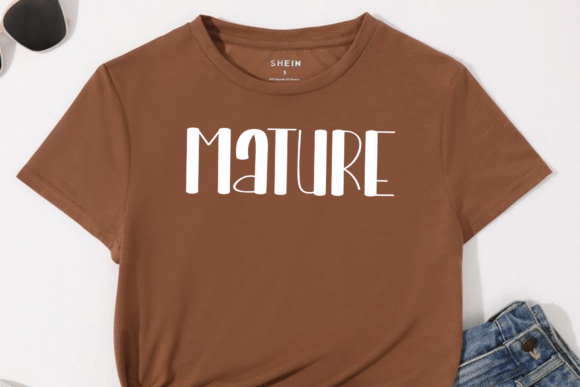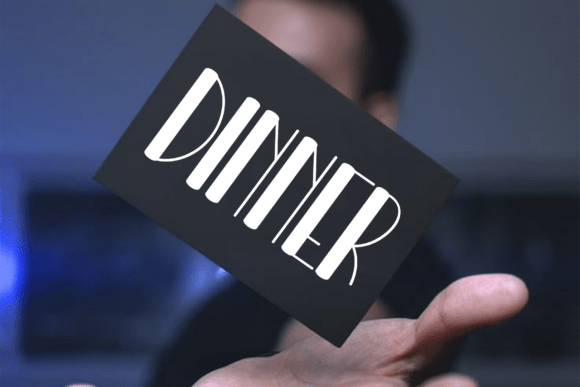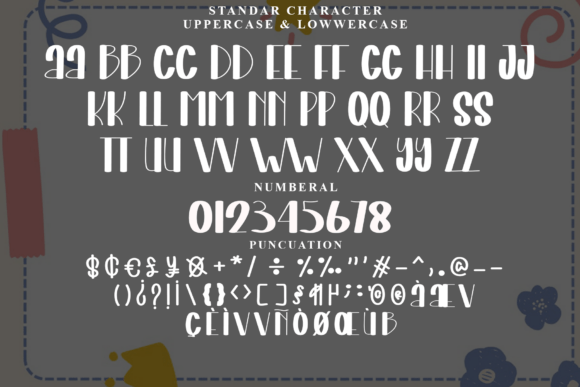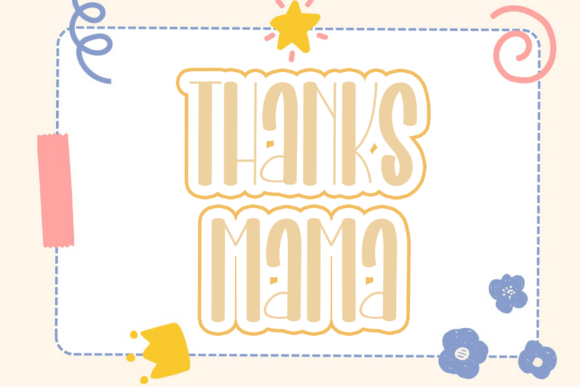
Introducing Backdrop Font: Elevate Your Design with Crisp Elegance
In the realm of modern handwritten fonts, Backdrop stands out as a unique and professional addition. This elegant font is designed to evoke a sense of clarity and sophistication, making it an ideal choice for designers and crafters seeking to add a touch of refinement to their work.
The Distinctive Features of Backdrop Font
Backdrop Font is characterized by its tall, thin strokes and subtle, airy slant. This distinctive design gives it a refined aesthetic that feels refreshingly crisp, much like a mountain breeze on a clear day. The clean and approachable style of Backdrop makes it versatile and suitable for a wide range of applications, from travel photography and outdoor gear branding to sophisticated web design.
Ideal Applications for Backdrop Font
• Travel Photography: The airy and elegant feel of Backdrop Font makes it a perfect match for travel photography. It adds a touch of sophistication to captions, titles, and descriptions, enhancing the overall visual appeal of travel albums and blogs.
• Outdoor Gear Branding: For brands related to outdoor gear and adventure, Backdrop offers a clean and modern look that resonates with the target audience. Its unique style helps in creating a memorable brand identity that stands out in the market.
• Sophisticated Web Design: Backdrop Font can elevate the typography of any website, adding a layer of elegance and professionalism. It’s particularly effective for websites focused on travel, outdoor activities, fashion, and lifestyle.
Why Choose Backdrop Font?
Choosing Backdrop Font for your design project comes with several benefits:
• Unique Aesthetic: Its tall, thin strokes and subtle slant offer a fresh and distinctive look that can set your work apart.
• Versatility: Backdrop can be used across various mediums, from digital platforms like websites and social media to print materials such as brochures and posters.
• Ease of Reading: Despite its elegant and thin strokes, Backdrop maintains a high level of legibility, making it suitable for both headings and body text.
Tips for Using Backdrop Font Effectively
To maximize the impact of Backdrop Font in your designs, consider the following tips:
• Pair with Complementary Fonts: For optimal results, pair Backdrop with fonts that have a slightly bolder or more pronounced style to create contrast and visual interest.
• Adjust Line Spacing: Given its airy feel, ensure adequate line spacing to maintain readability and emphasize the font’s elegance.
• Utilize for Headers and Titles: Backdrop’s unique style makes it particularly effective for headers and titles, where its elegance can be fully appreciated.
Font Name Backdrop Font
Author Preketek texs
Backdrop Font offers a refreshing take on modern handwritten fonts, bringing a sense of clarity, elegance, and sophistication to any design project. Its unique features, versatility, and aesthetic appeal make it an excellent choice for designers and crafters looking to elevate their work. Whether you’re working on travel photography, outdoor gear branding, or sophisticated web design, Backdrop Font is sure to enhance your creations with its crisp and elegant style.